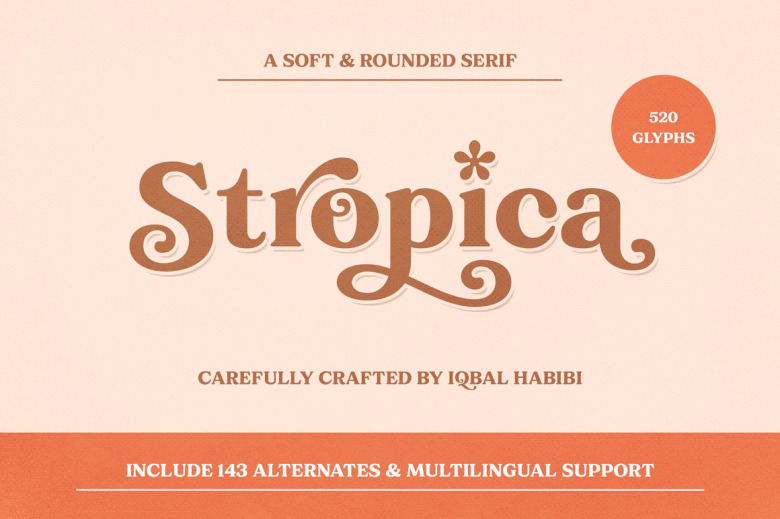
Stropica Font
Stropica is a soft and rounded display serif font that will help you take the old school to the modem. Stropica has the support of 520 glyphs as well as 143 alternate characters that make the design more elegant and support Latin Extended Language. It is best for Headlines, Logotypes or Logos, titles, packaging designs, quotes and many other graphic design projects.
Stropica Serif Font